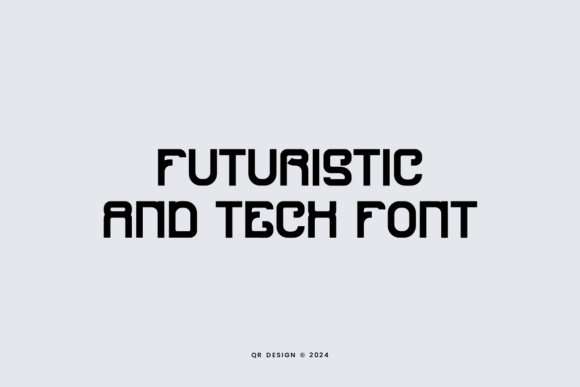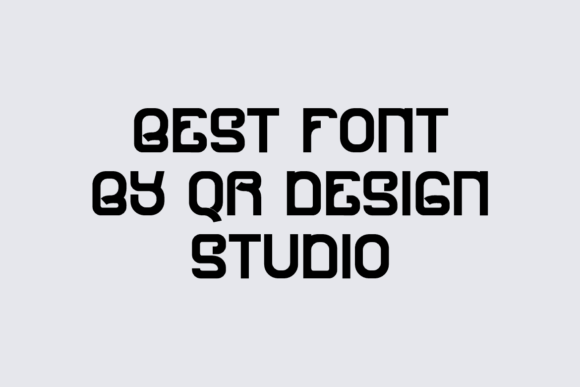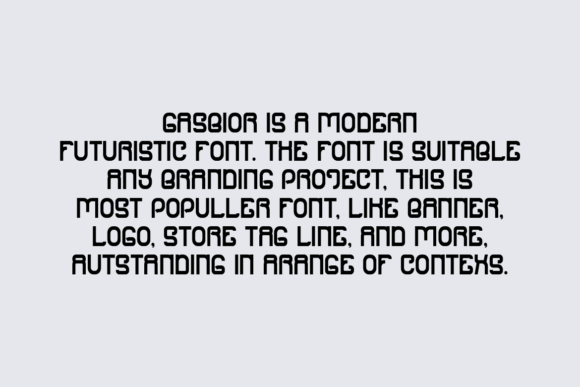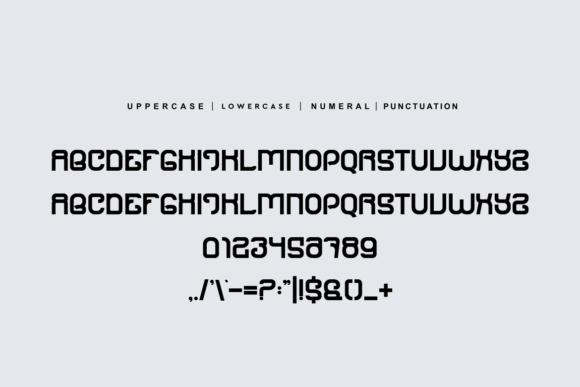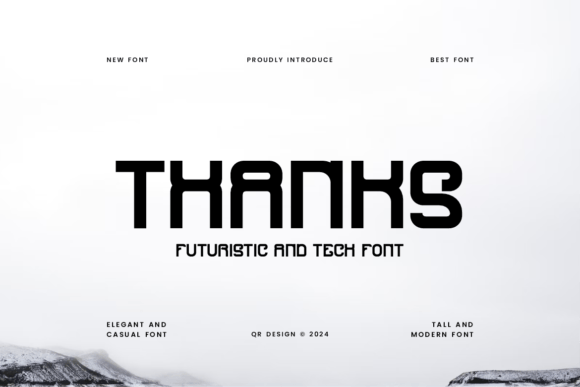
Introducing Gasbior Font: The Ultimate Futuristic Techno Font
In the world of digital design, typography plays a crucial role in conveying the tone and aesthetic of a brand or project. For designers and crafters looking to create a futuristic or high-tech look, Gasbior Font is the perfect solution. This sleek and modern font is designed to make a statement, with its sharp edges and geometric shapes giving it a cutting-edge feel that’s ideal for sci-fi themes, tech branding, and digital designs.
What Makes Gasbior Font Stand Out?
Gasbior Font is not just another font – it’s a game-changer. Its bold lines and unique letterforms make it stand out in a crowded digital landscape. The font’s futuristic design is perfect for creating a sense of innovation and forward-thinking, making it ideal for tech companies, startups, and digital designers looking to make a lasting impression.
Key Features of Gasbior Font
- Sharp Edges and Geometric Shapes: Gasbior Font features sharp edges and geometric shapes that give it a high-tech feel.
- Bold Lines: The font’s bold lines make it perfect for catching attention in a futuristic or digital setting.
- Unique Letterforms: Gasbior Font’s unique letterforms set it apart from other fonts, making it ideal for creating a distinctive brand identity.
- Modern Design: The font’s modern design ensures that it looks sleek and contemporary, perfect for digital designs and tech branding.
Use Cases for Gasbior Font
Gasbior Font is versatile and can be used in a variety of contexts, including:
- Sci-Fi Themes: The font’s futuristic design makes it perfect for sci-fi movies, TV shows, and video games.
- Tech Branding: Gasbior Font is ideal for tech companies and startups looking to create a modern and innovative brand identity.
- Digital Designs: The font is perfect for digital designers looking to create a futuristic or high-tech look for their projects.
- Advertising and Marketing: Gasbior Font can be used in advertising and marketing materials to grab attention and create a lasting impression.
Tips for Using Gasbior Font
To get the most out of Gasbior Font, here are some tips to keep in mind:
- Use it Sparingly: Gasbior Font is bold and attention-grabbing, so use it sparingly to avoid overwhelming your design.
- Pair it with Other Fonts: Pair Gasbior Font with other fonts to create a unique and visually appealing typography.
Gasbior Font is a game-changing font that’s perfect for designers and crafters looking to create a futuristic or high-tech look. Its sharp edges, geometric shapes, and bold lines make it stand out in a crowded digital landscape. With its versatility and modern design, Gasbior Font is ideal for a variety of use cases, from sci-fi themes to tech branding and digital designs. So why settle for a ordinary font when you can make a statement with Gasbior Font?